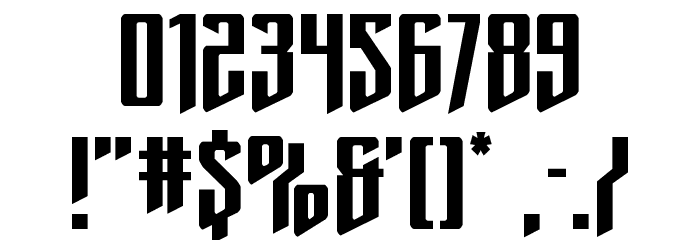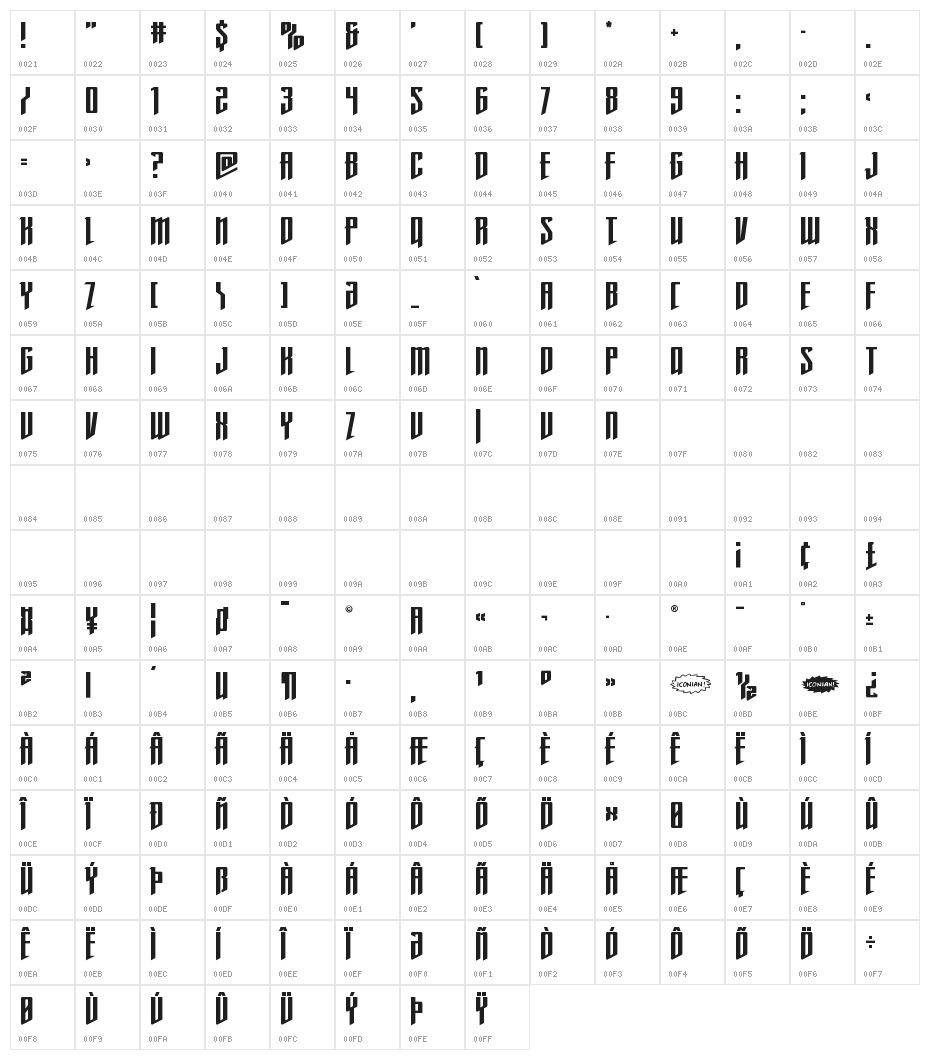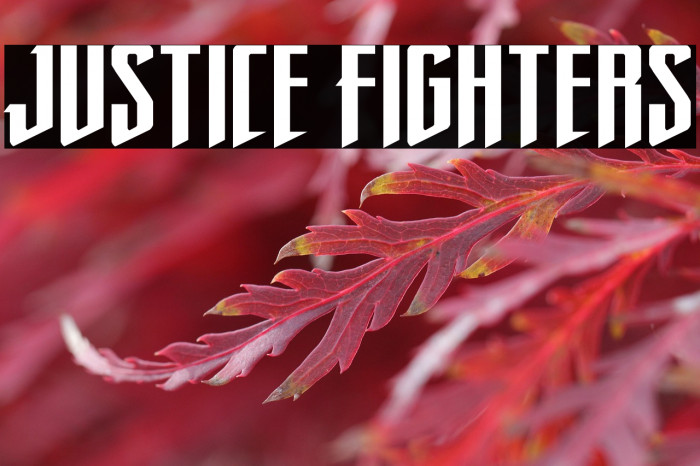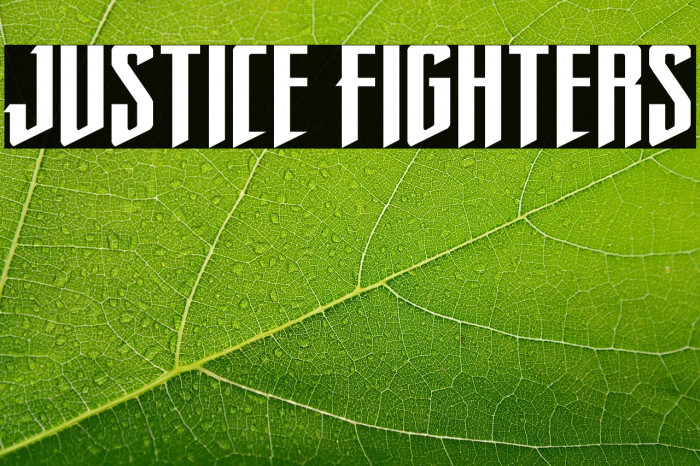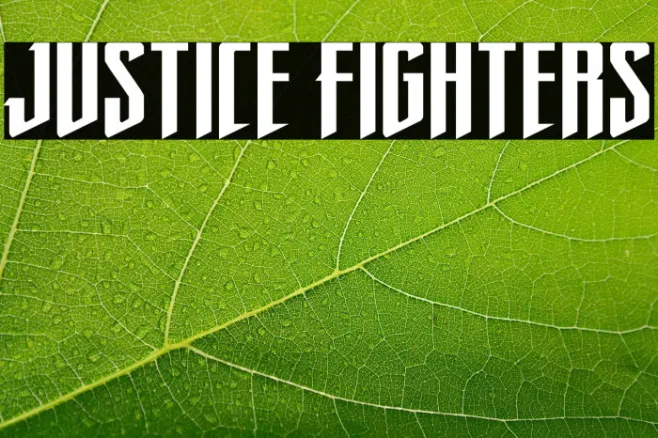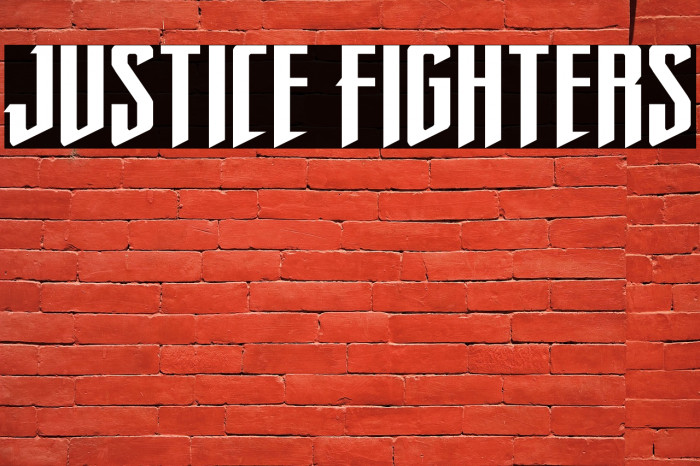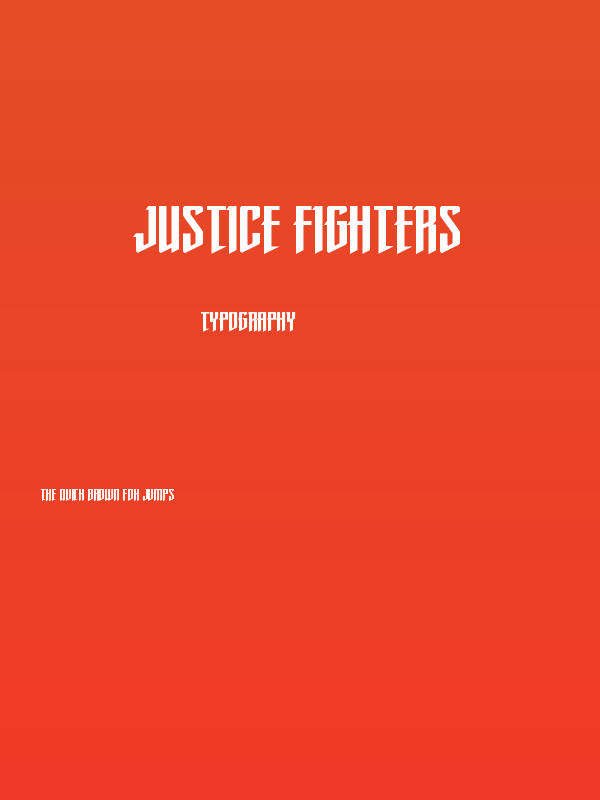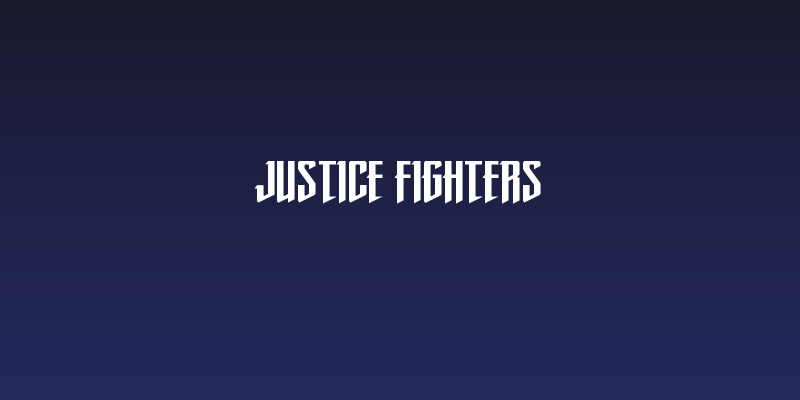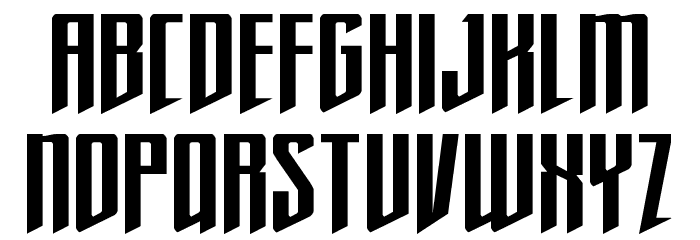
Justice Fighters Font
Justice Fighters Description
This font features a bold and striking design with sharp, angular edges and a strong presence. The uppercase letters are tall and narrow, giving a sense of height and power. The lowercase letters maintain the same angular style, ensuring consistency throughout the typeface. Numbers and special characters are designed to match the boldness and angularity of the letters, making the font suitable for impactful and attention-grabbing designs. The overall appearance is modern and dynamic, with a hint of aggression that makes it perfect for projects requiring a strong visual statement.